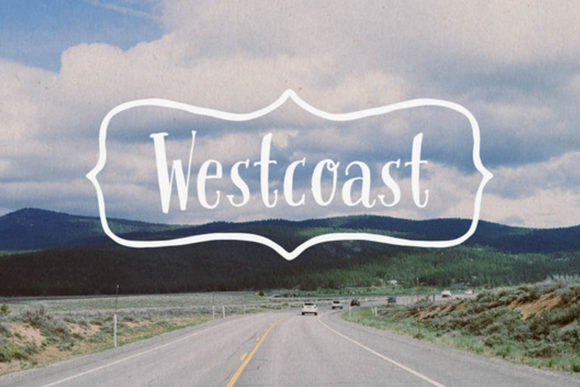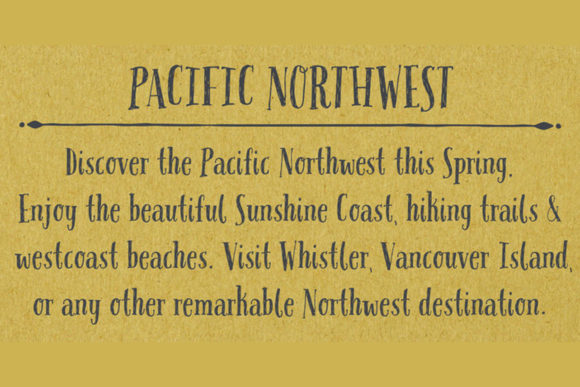
Pacific Northwest Font
db-ku.com - Script & Handwritten -- Pacific Northwest feels equally charming and friendly. This stunning script font is a stylish homage to classic calligraphy. It features a varying baseline, smooth lines, gorgeous glyphs and stunning alternates. It also features great labels and frames.